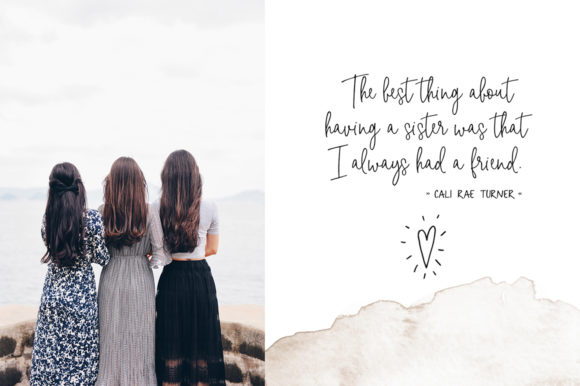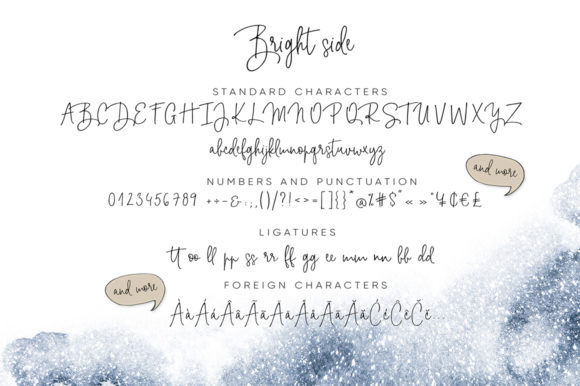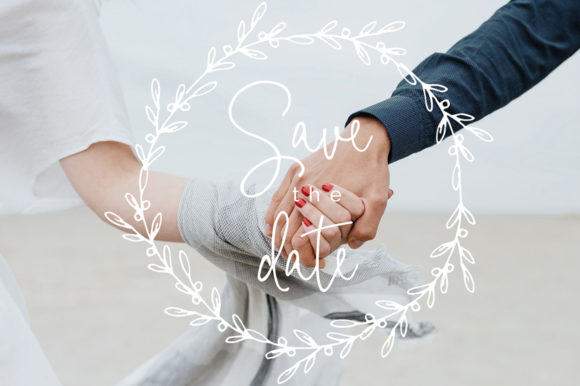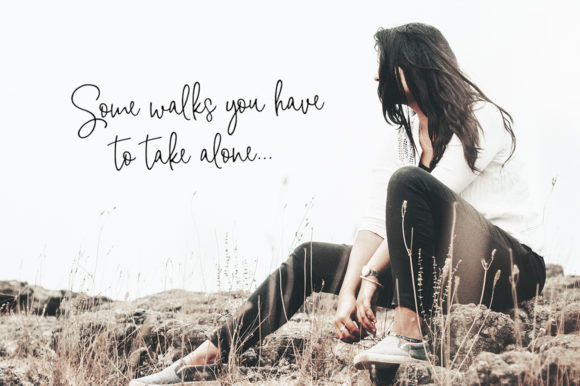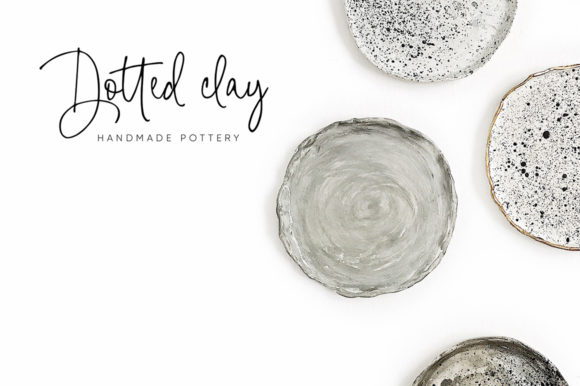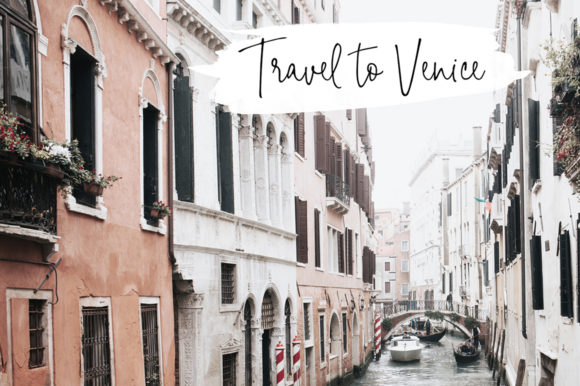
The Bright Side Font: Elevate Your Designs with Elegance
Have you ever been in the middle of a design project, and suddenly, you’re stuck on finding the perfect font? I recall a recent experience where a client requested a logo that exuded elegance and sophistication. After hours of searching, I stumbled upon the Bright Side Font, and it was love at first sight! In this article, we’ll dive into the world of Bright Side Font, exploring its features, uses, and everything in between.
A Personal Review: What I Love About Bright Side Font
As a designer, I’m always on the lookout for fonts that can elevate my projects. Here’s what I love about Bright Side Font:
• ✨ Modern monoline signature script: Bright Side Font boasts a sleek, modern design that’s perfect for creating elegant logos, greeting cards, and invitations.
• ✅ Easy to read and versatile: The font is clear, legible, and works well in various design contexts, from blogs to social media graphics.
• 🎁 Bonus doodles and templates: The package includes 36 floral and feminine doodles, as well as 15 pre-made logo templates, making it a fantastic value.
While Bright Side Font is an excellent choice, there are a few minor considerations:
• ⚠️ Limited use in body text: Due to its script nature, Bright Side Font might not be the best choice for lengthy body text. It’s ideal for headings, titles, or short paragraphs.
• 🤔 Requires some exploration to master OpenType features: While not difficult, it may take some time to get familiar with the font’s advanced features, such as glyphs and stylistic alternates.
The Story Behind Bright Side Font
Bright Side Font was created with the intention of providing designers with a versatile, elegant script font that could be used in various contexts. Inspired by modern calligraphy and hand-lettering, this font is perfect for those seeking to add a touch of sophistication to their designs.
Is Bright Side Font suitable for body text? While it’s possible to use Bright Side Font for body text, it’s recommended for headings, titles, or short paragraphs due to its script nature.